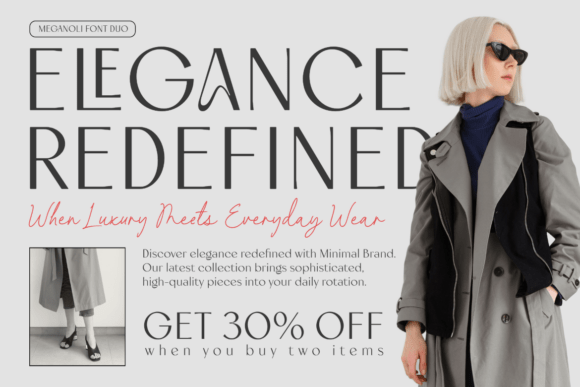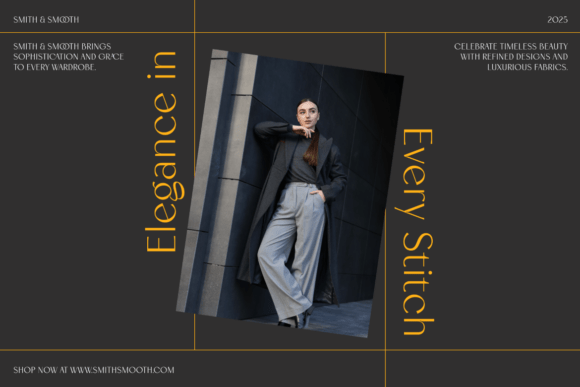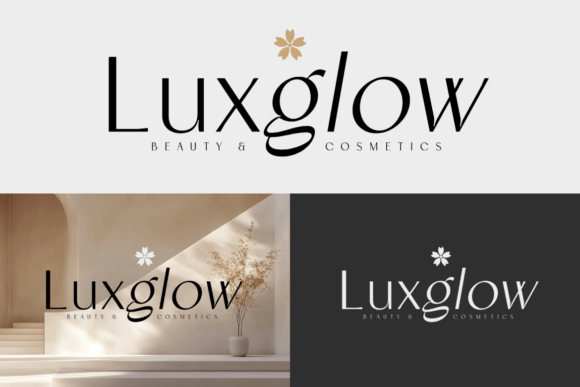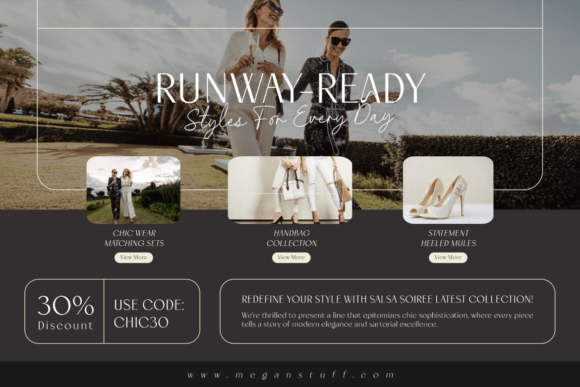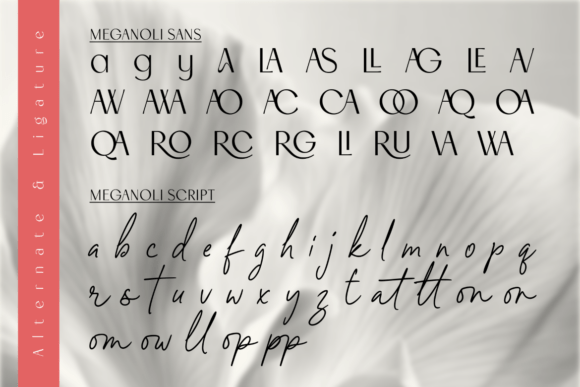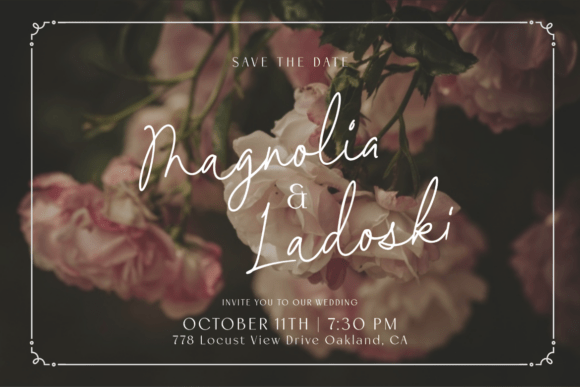
Introduction to Meganoli Duo Font
Introducing Méganoli, a refined and contemporary font duo that effortlessly blends sophistication with style.
Featuring a clean and elegant sans-serif paired with a flowing, modern script, Méganoli is designed to elevate your creative projects with a touch of timeless luxury Perfectly suited for branding, editorial design, fashion, packaging, and wedding stationery, this font duo offers seamless harmony between structure and grace.
Key Features of Meganoli Duo Font
Why Choose Meganoli Duo Font?